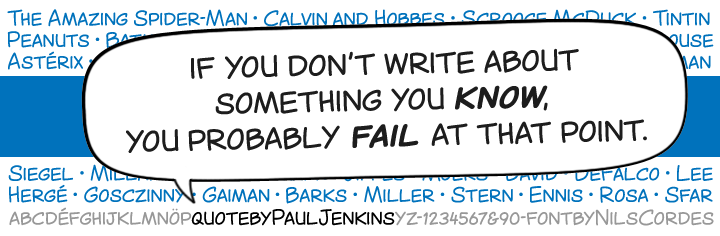
Font name: | Canted Comic |
Author: | Nils Cordes |
A comic font inspired by 1960s US comic books. The boldface is slightly oblique, just like you know it from your favorite comics. Sister font of Canted FX. Free for personal and commercial use; just credit the designer. And I'm always happy to see images of the font in use, so do not hesitate to contact me. |